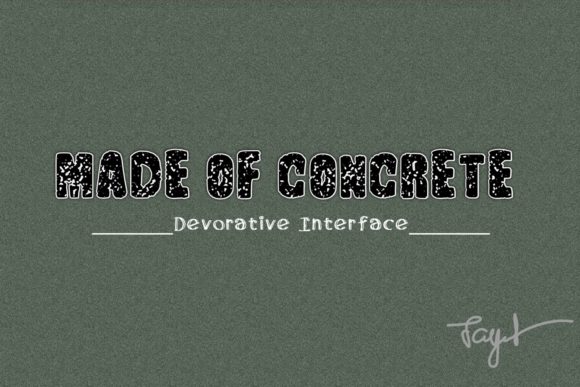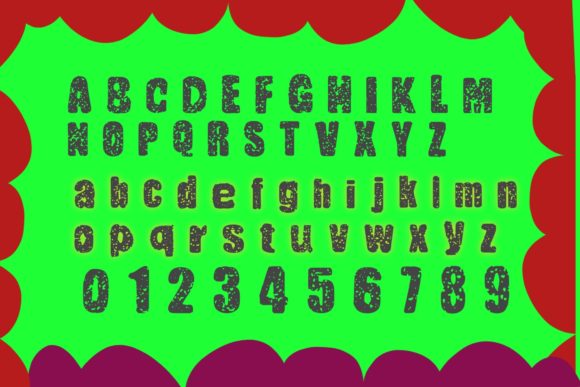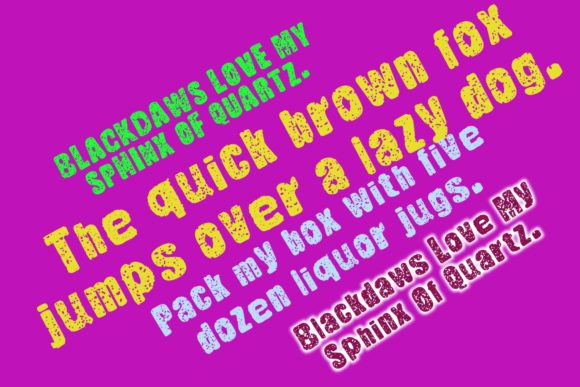
Made of Concrete
About Made of Concrete Font
Made of Concrete is an incredibly unique and interesting decorative font, featuring Concrete alike decorative surface. Fall in love with its incredibly versatile style and use it to create spectacular designs, i.e: quotes, titles, brand names, book covers, posters, or just any creation that requires a touch of beauty, this font is a great choice.